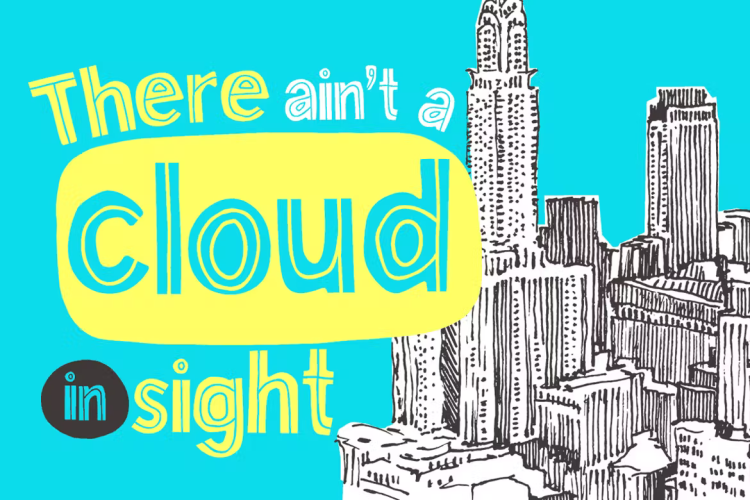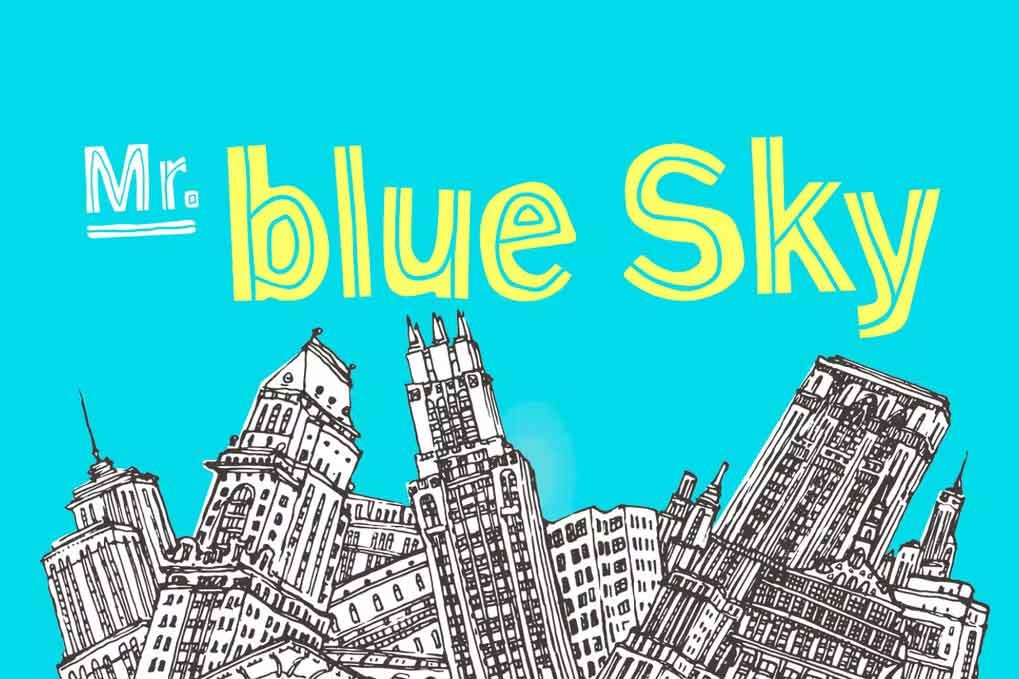
Mr Blue Sky Font
Mr. Blue sky is a handmade Gothic sans-serif display typeface. It has a quirky, playful and fun feeling.
Usage
Use it at large point sizes for headings. It’s ideal for logos, posters and packaging but is adaptable enough for a wide range of design work.
Where Mr Blue Sky Font works best
Mr Blue Sky Font keeps its shape at 14 and 16 pixels, which is where interface text actually lives. Numbers and capitals stay distinguishable in tables.
Presentations are read at a distance; a clean sans with a strong bold is the safest hierarchy you can build in a hurry.
Simple letterforms survive angles, glare and movement, so Mr Blue Sky Font suits door signs, menus boards and exhibition panels.
What kind of work does Mr Blue Sky Font suit?
It sits in the Sans Serif Fonts group and reads as branding, display, handwritten, playful. That makes it a candidate wherever those qualities help: headings, packaging, social graphics and brand work. Set it at the size you plan to use before deciding.